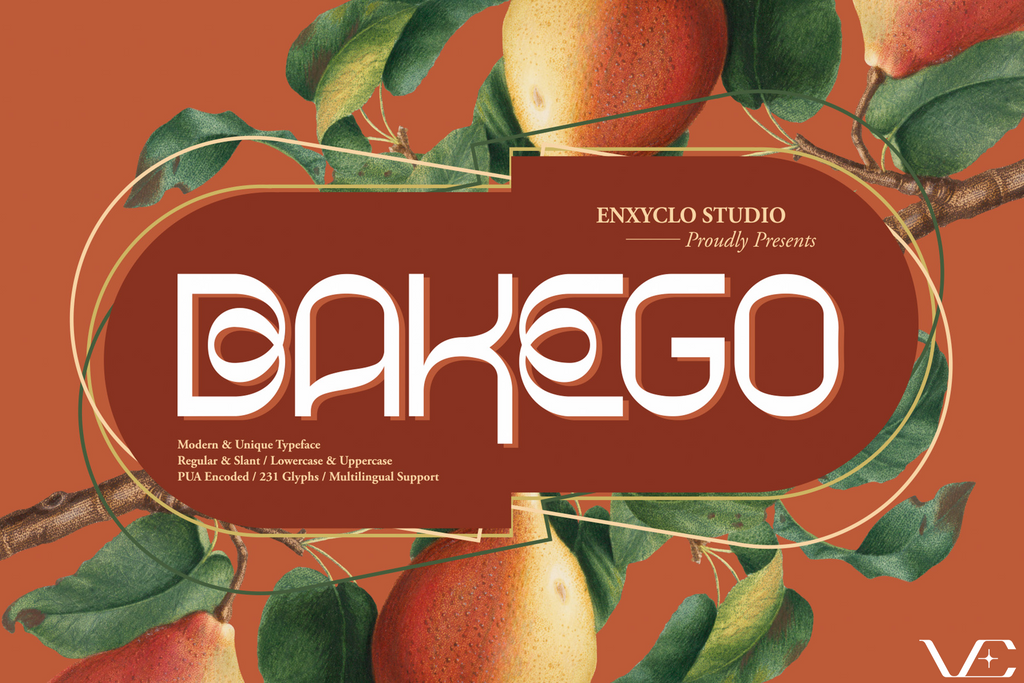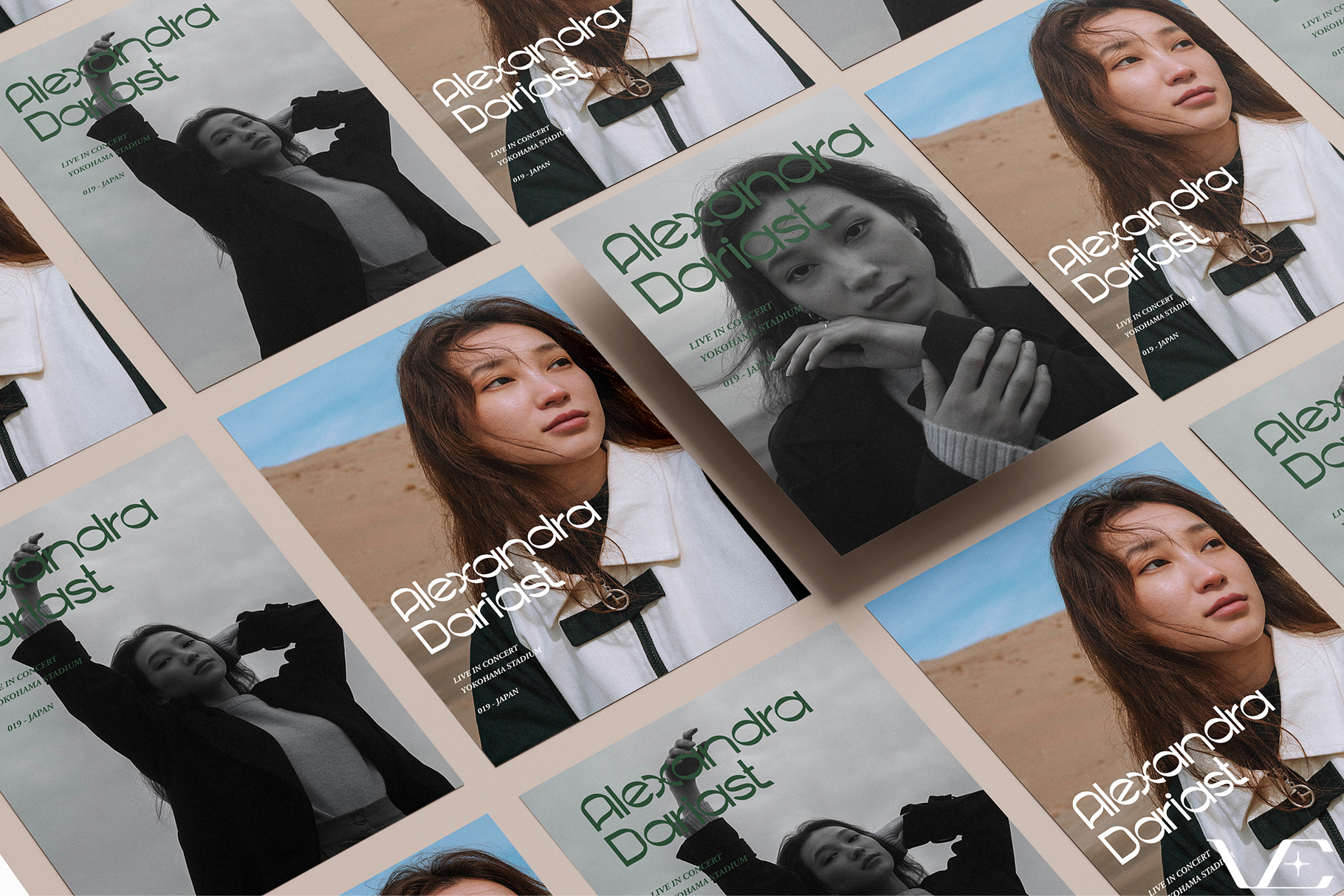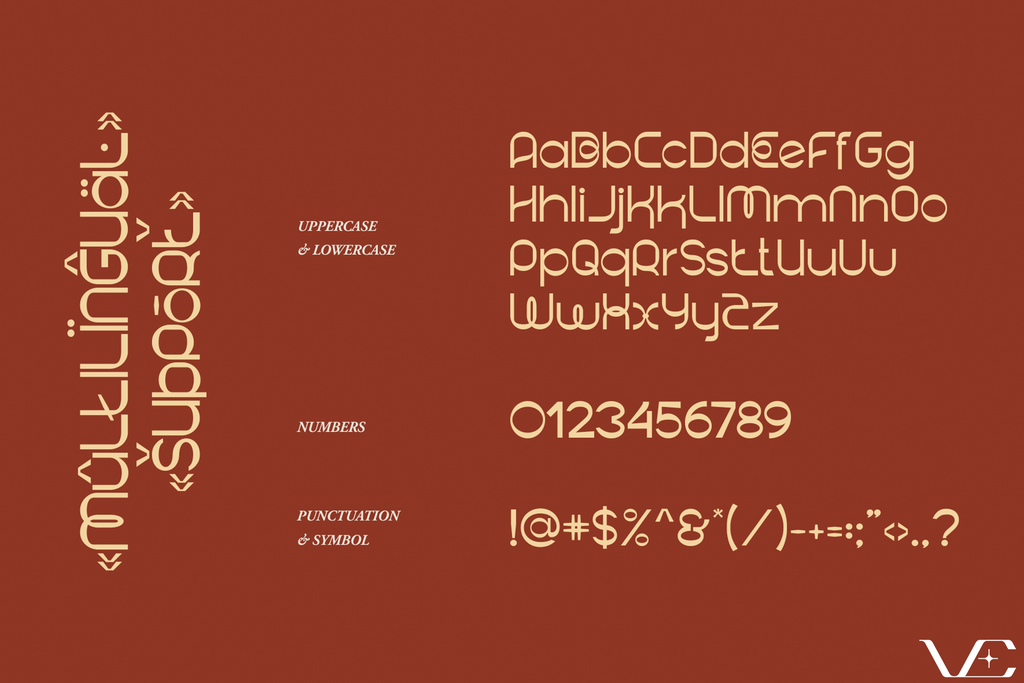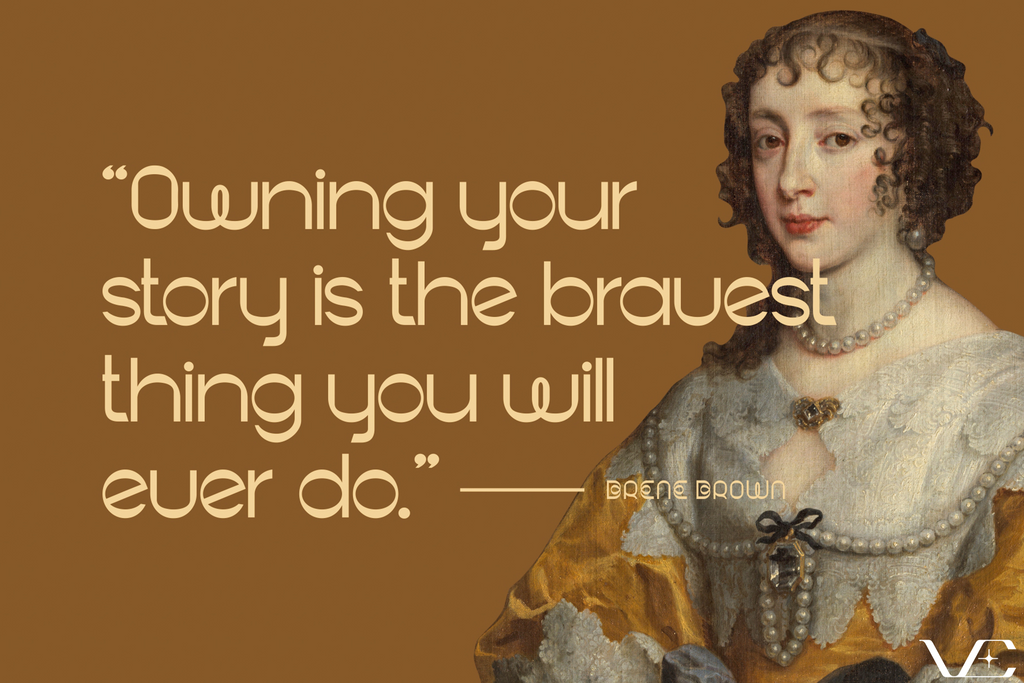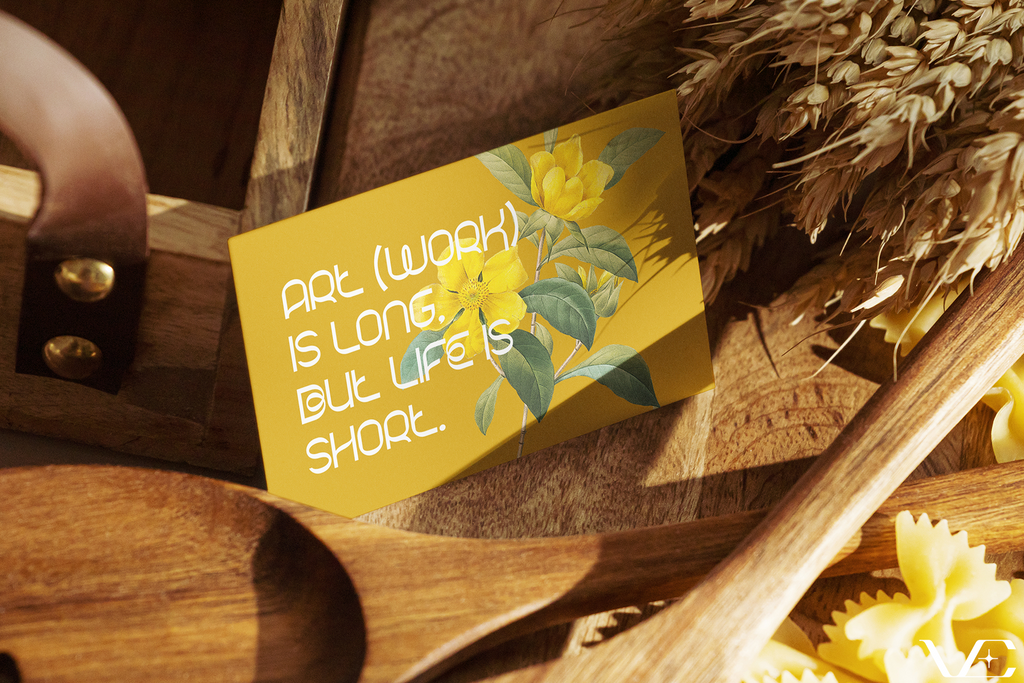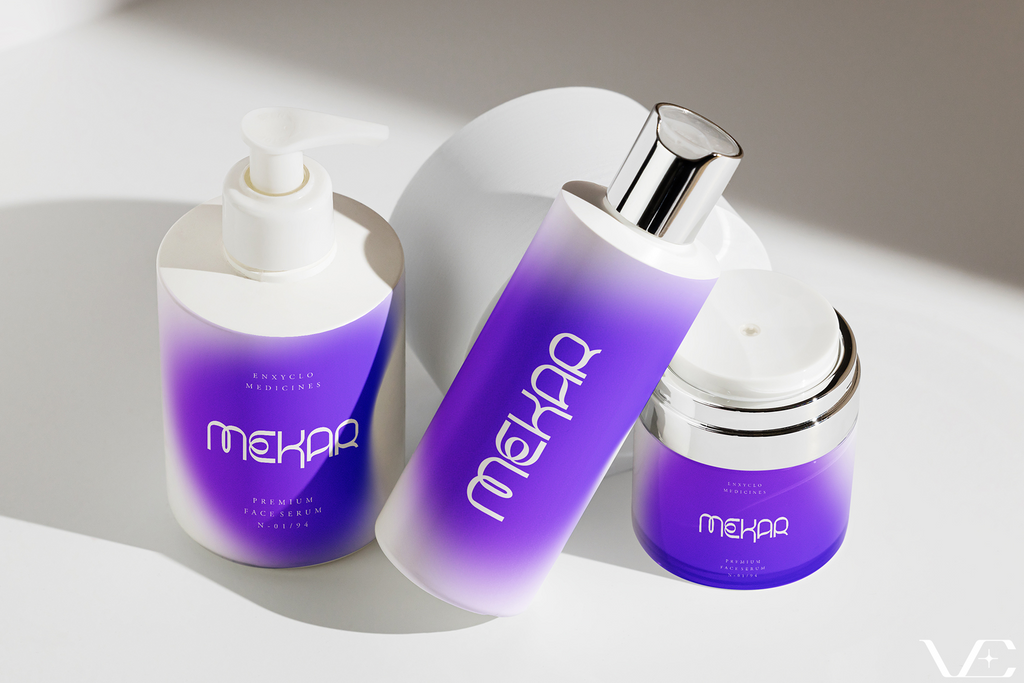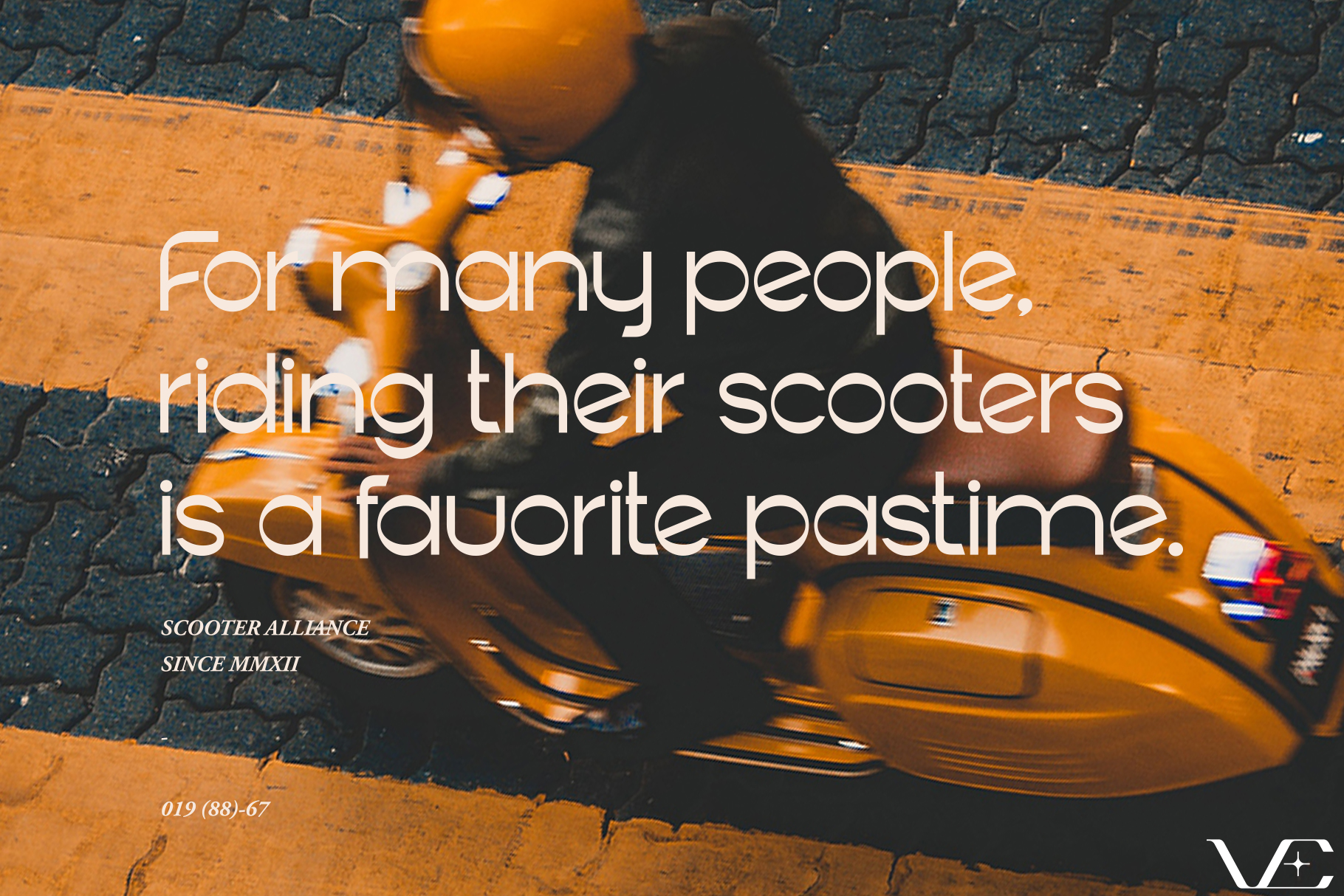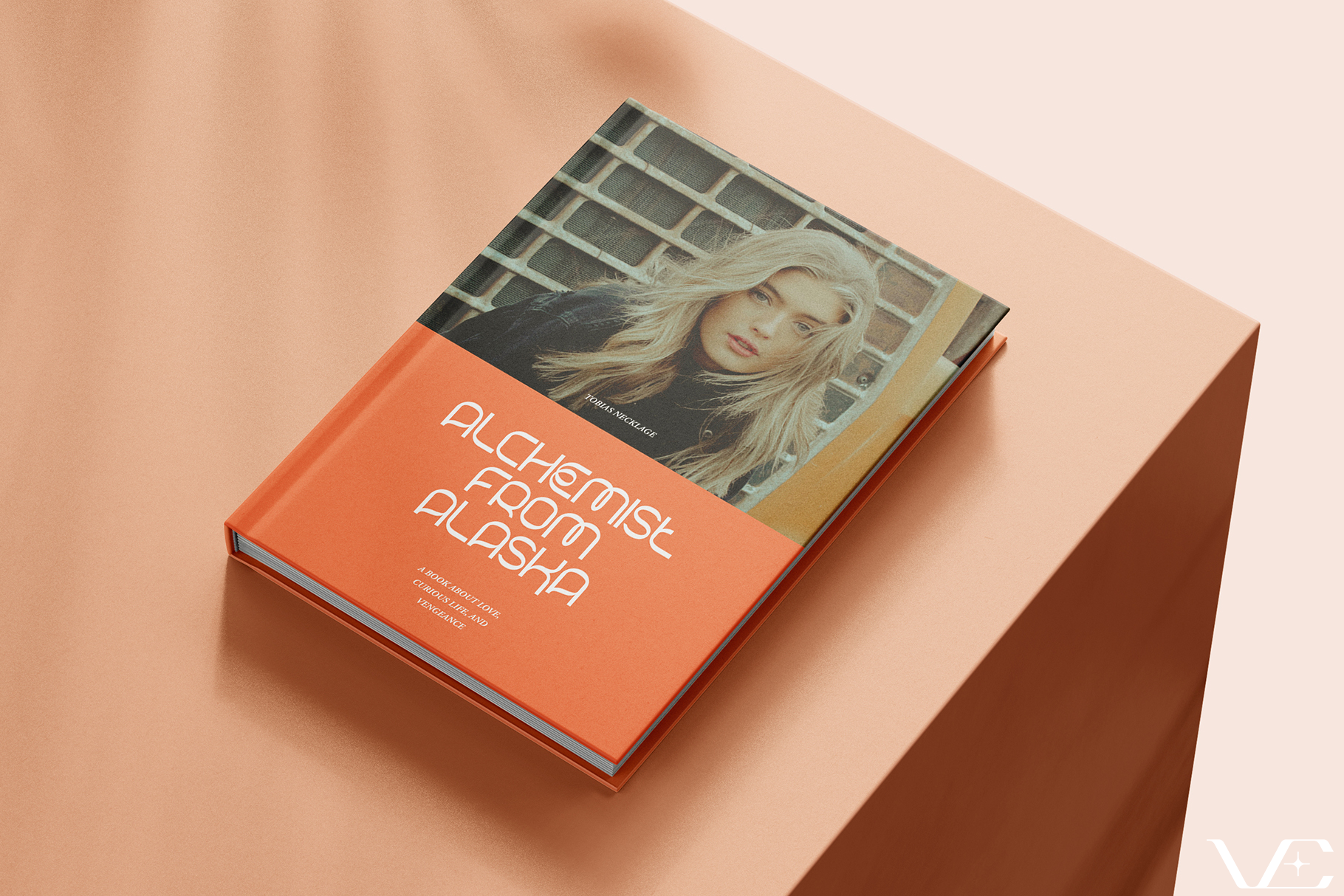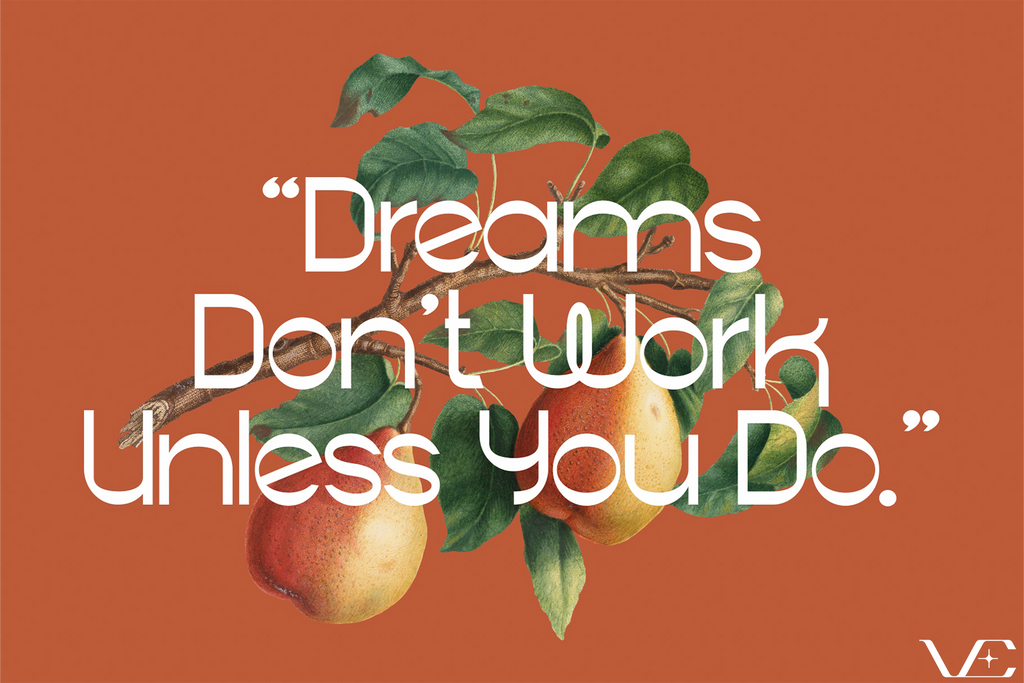
BAKEGO • Experimental Typeface
BAKEGO is a fun, unique and modern display font. Masterfully designed to become a true favorite, this font has the potential to bring each of your creative ideas to the highest level! It was purposely crafted to be used in large point sizes, although it doesn’t lose its magic in small point sizes. It is perfect for headline, billboard, magazines, website, titles, poster, branding, and logos. No matter the topic, this font will be an incredible asset to your fonts’ library, as it has the potential to elevate any creation. With this beautiful font, absolutely you can make your project stand out from the rest. See the previews above to get some inspiration on how to use them.
- 2 Styles: Regular & Slant
- Contains 231 Glyphs for Each Style (Total: 462 Glyphs)
- Uppercase, Lowercase, Numeral, Punctuation & Symbol
- Multilingual Support